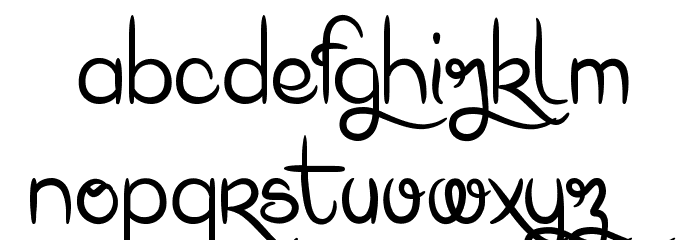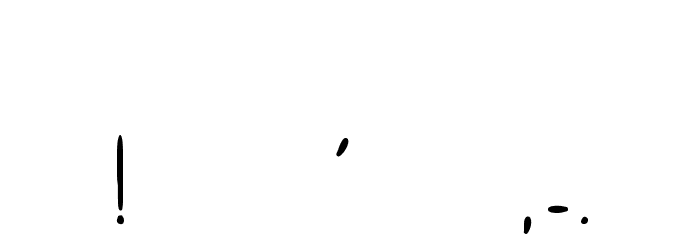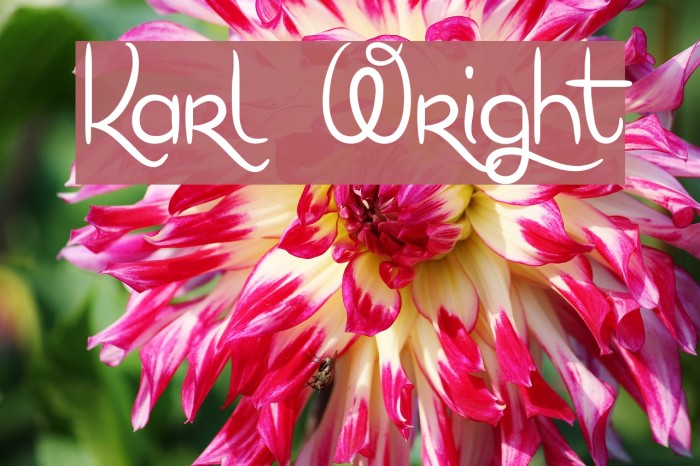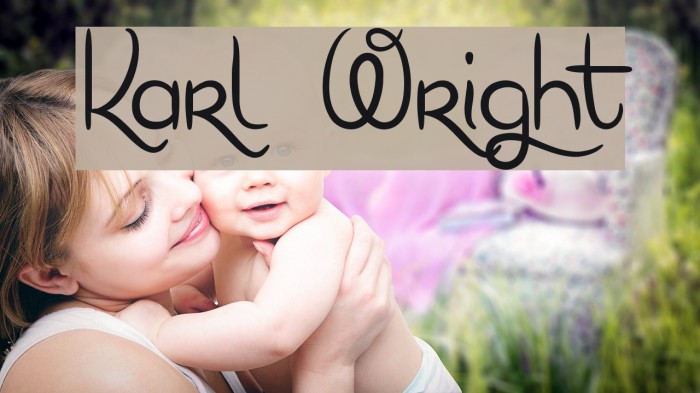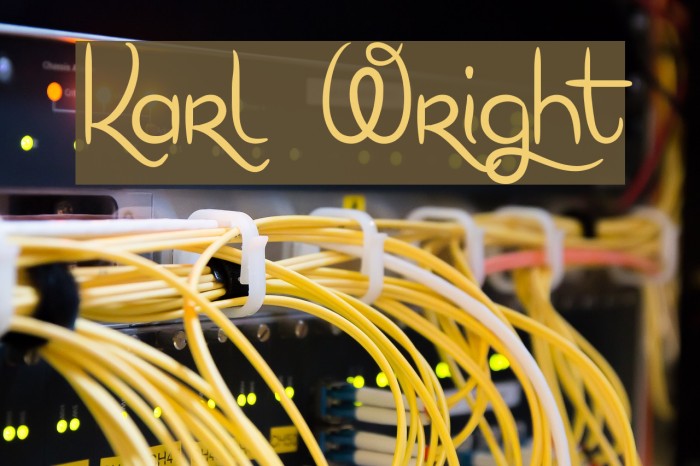
Karl Wright Font
This font features an elaborate and artistic style, characterized by its flowing and interconnected strokes. The uppercase letters are particularly ornate, with extended swashes and loops that give a sense of movement and elegance. The lowercase letters maintain a consistent style, with a playful yet sophisticated appearance. The font includes a variety of special characters, each designed with the same attention to detail. Its decorative nature makes it suitable for creative and expressive projects, where a touch of flair is desired.
An ornate and flowing decorative font with elegant swashes.
- Proposed Projects: Ideal for wedding invitations, greeting cards, logos, and artistic posters.
- Use Case: Logos, Headlines, Artistic projects